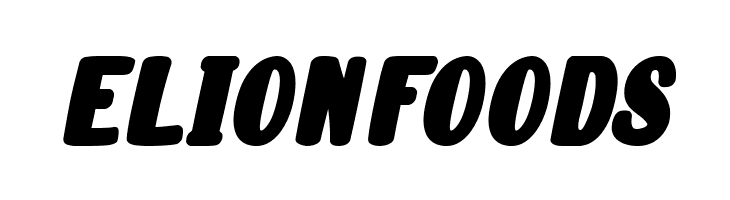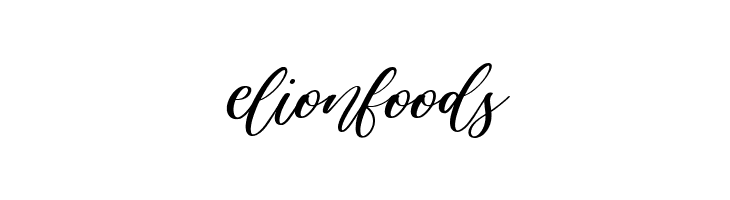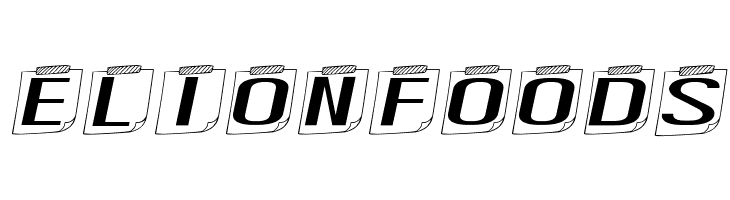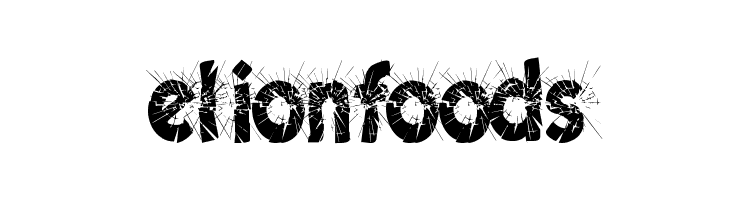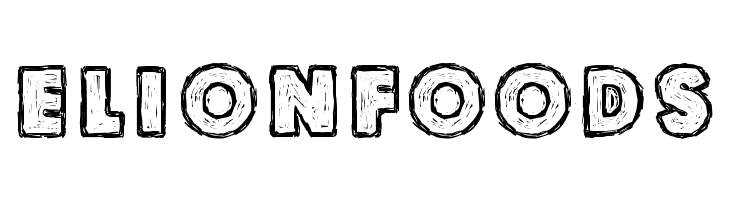
• sleeperzzzz
A bold, brushstroke-style font with a dynamic and artistic appearance.
• Sleeping
( Darrell Flood )
A playful, bold font with rounded, bubbly characters perfect for fun and creative projects.
• Sleeping Italic
( Darrell Flood )
A bold, playful, handwritten-style font with rounded, slanted letters.
• Slenderscratch
• Slenderscratch Italic
• SlickRoadsDT
A bold, handwritten font with a playful and dynamic style.
• Slightly Eroded
A bold, distressed font with an eroded, vintage texture.
• Slim Jim
A casual, handwritten font with a playful and informal style.
• Slimbits
A sleek, ultra-thin font with elongated, narrow characters for a modern look.
• Slimbots
• Slimbots Italic
• Smart Faces
A playful, hand-drawn font with cartoon-like features and bold strokes.
• Smasher 312
A bold, graffiti-inspired font with sharp, angular edges and dynamic styling.
• Smiley Kitten
• Smiley Monster
A playful, rounded font with a hand-drawn, whimsical style.
• smoke on the water
A jagged, energetic font with a dynamic, smoke-like appearance.
• SmokingParadise
A bold, handwritten font with a dynamic, brush-like style.
• Snarky's Machine
A bold, three-dimensional font with a playful and dynamic appearance.
• Snarky's Machine
A bold, 3D font with a playful, cartoonish style and thick outlines.
• Snoopii Losee
A bold, playful handwritten font with thick strokes and dynamic curves.
• snowland